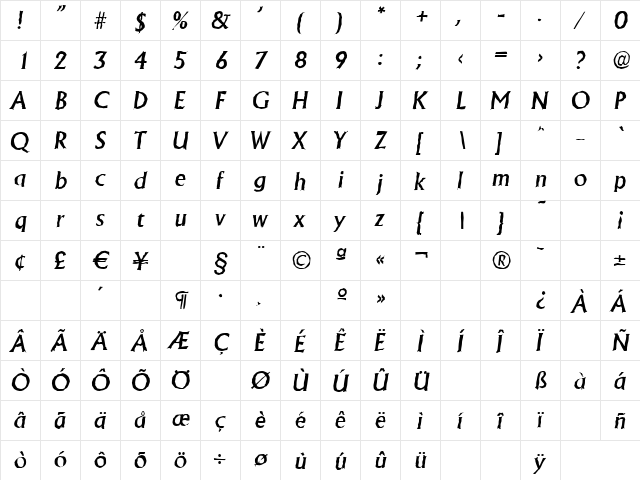
JacobBeckerAntique-Medium Italic
Design Context for JacobBeckerAntique-Medium Typeface
JacobBeckerAntique-Medium has the warm character of retro typography — evoking diners, record sleeves, and the golden age of print advertising. Its italic angle brings a sense of urgency and motion to the letterforms.
Font Pairing: Combine JacobBeckerAntique-Medium with a simple slab or neutral sans — period-accurate companions reinforce the vintage feel without competing for attention.
Pro Tip: Lean into JacobBeckerAntique-Medium's period character by pairing it with aged paper textures, muted colour palettes, and vintage illustration styles.